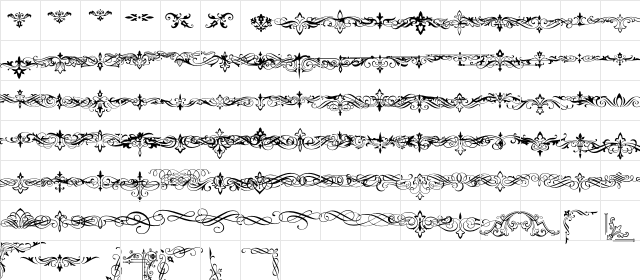
NatVignetteOne Regular
Design Context for NatVignetteOne Typeface
NatVignetteOne is a composed and adaptable typeface that performs quietly and consistently across a wide range of design contexts.